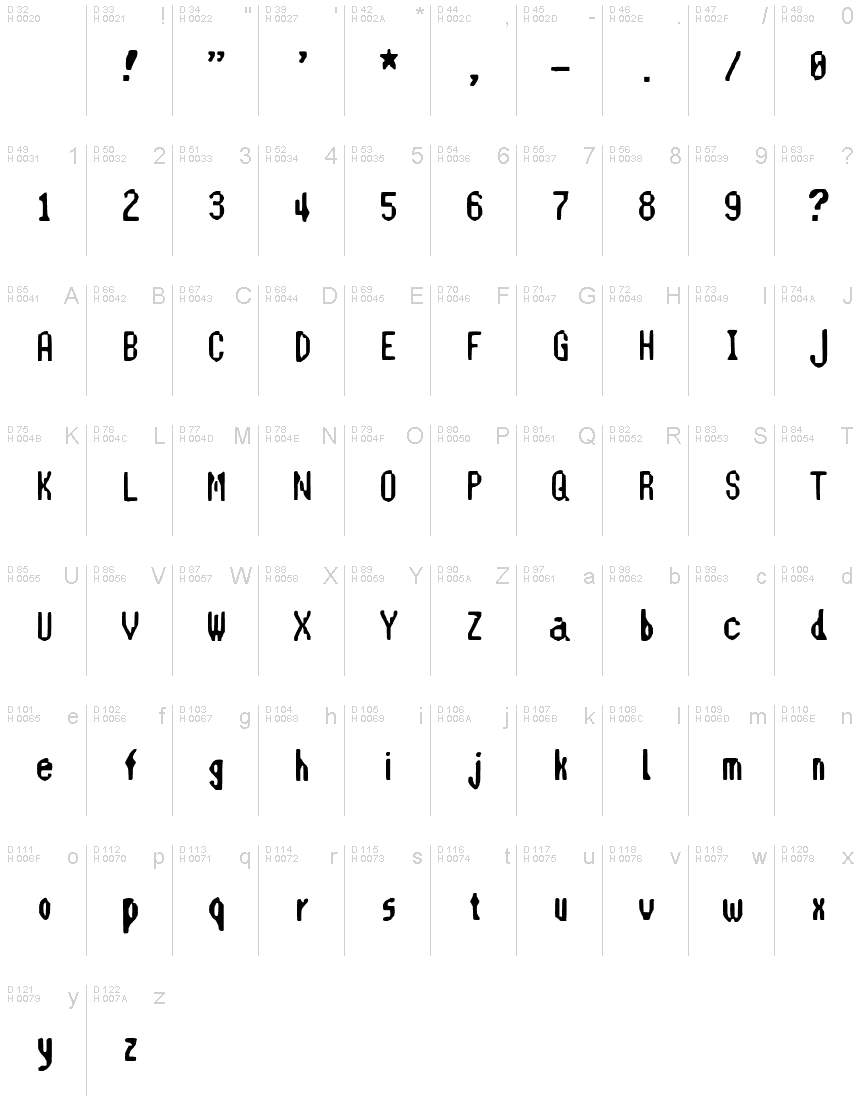
Digimon World Ds Regula Regular
Looking for a font that will make your designs stand out from the crowd? Look no further than Digimon World Ds, the latest offering from acclaimed designer UnderAnAquarianRock. This display font is perfect for projects that require a bold and eye-catching look, with its distorted style and semi-light weight lending an air of uniqueness to any design. And with its extra-condensed width, this font is perfect for fitting plenty of text into tight spaces - making it ideal for everything from posters to social media graphics. Give your next project a truly distinctive look with Digimon World Ds!
This is the regular font that can be found in the game, Digimon World DS, released for the Nintendo DS on 2006. Since I couldn't find this font anywhere, I basically created made a font of this from a picture that I had.